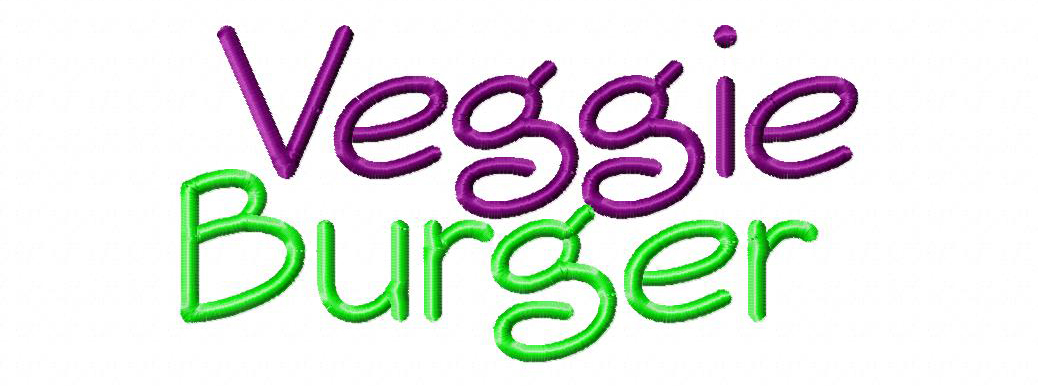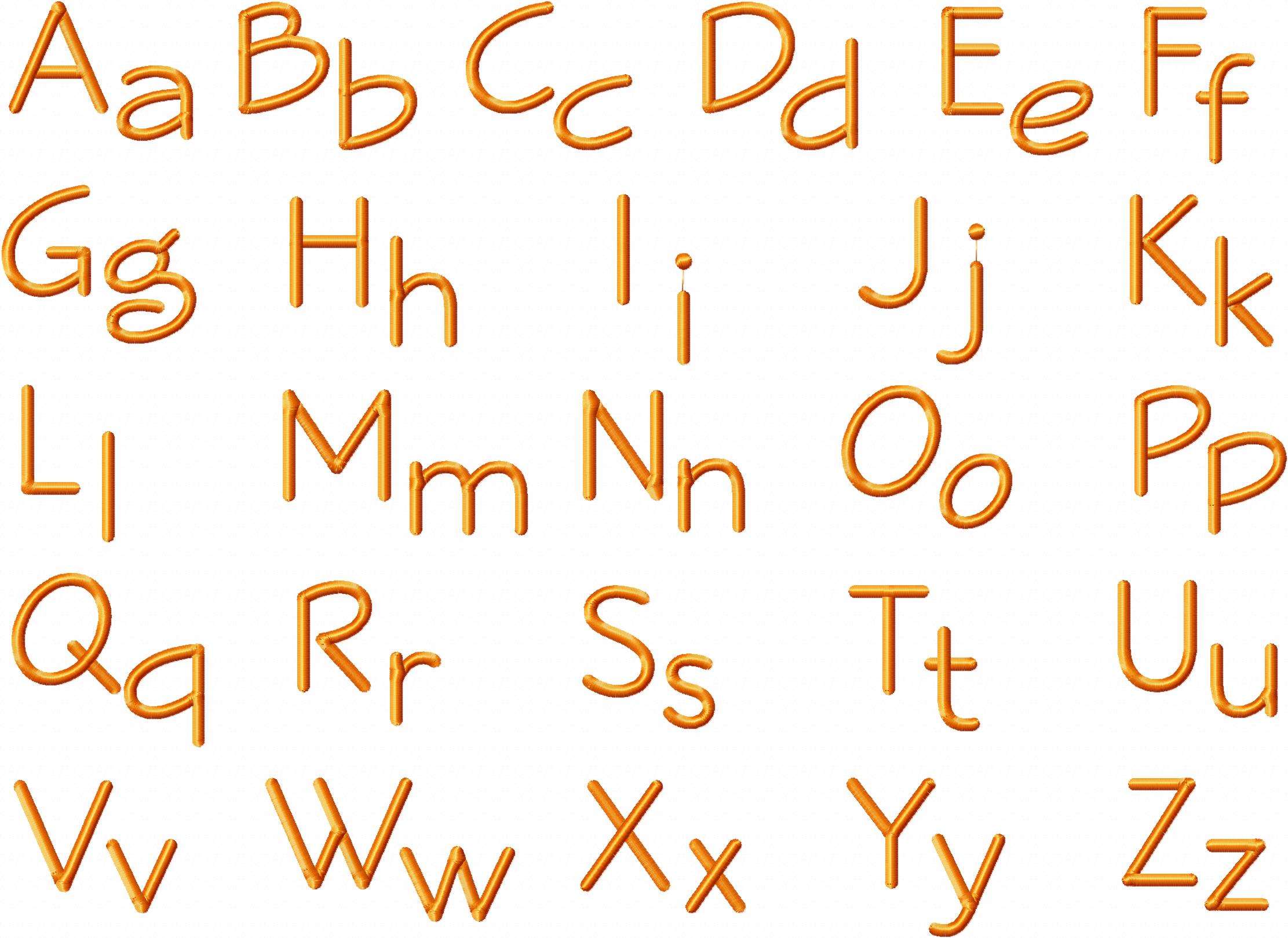
This deliciously fun and free machine embroidery font set is the perfect lettering to personalize all your latest projects. Includes three sizes! Download the Veggie Burger Machine Embroidery Font Set design for free for one day only.
The Veggie Burger machine embroidery font set includes Uppercase and Lowercase Letters, Numbers and Bonus Punctuation in all of the following sizes: 1" 2" & 3"